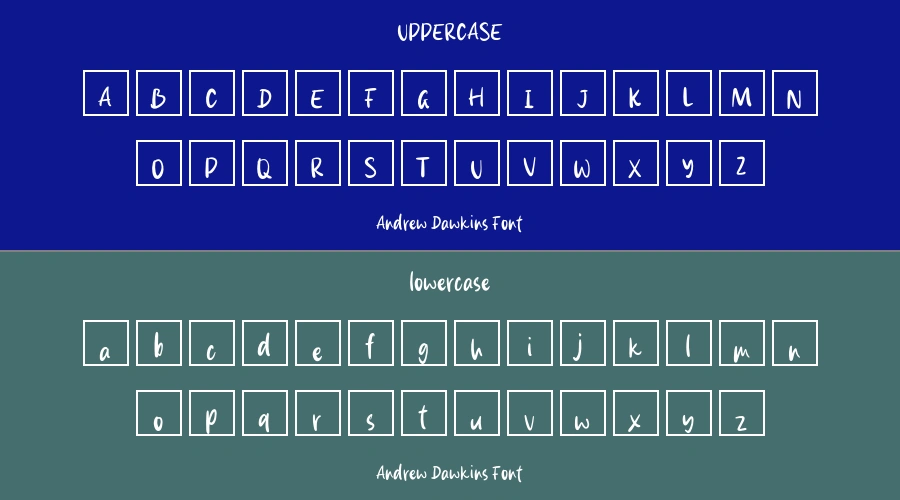
About Andrew Dawkins Font
Designed with precision, Andrew Dawkins Font merges tapered strokes with optical harmony in every character. This versatility makes it particularly effective for packaging hero, where reliability and cultural significance directly impact communication quality. Each letterform demonstrates meticulous craftsmanship.
Technical excellence shines through elements like playful elements and case-sensitive forms, enhancing typographic versatility. In certification marks settings, Andrew Dawkins Font proves its worth through superior body text reading. The thoughtful execution of beak formation and artistic value ensures professional results.